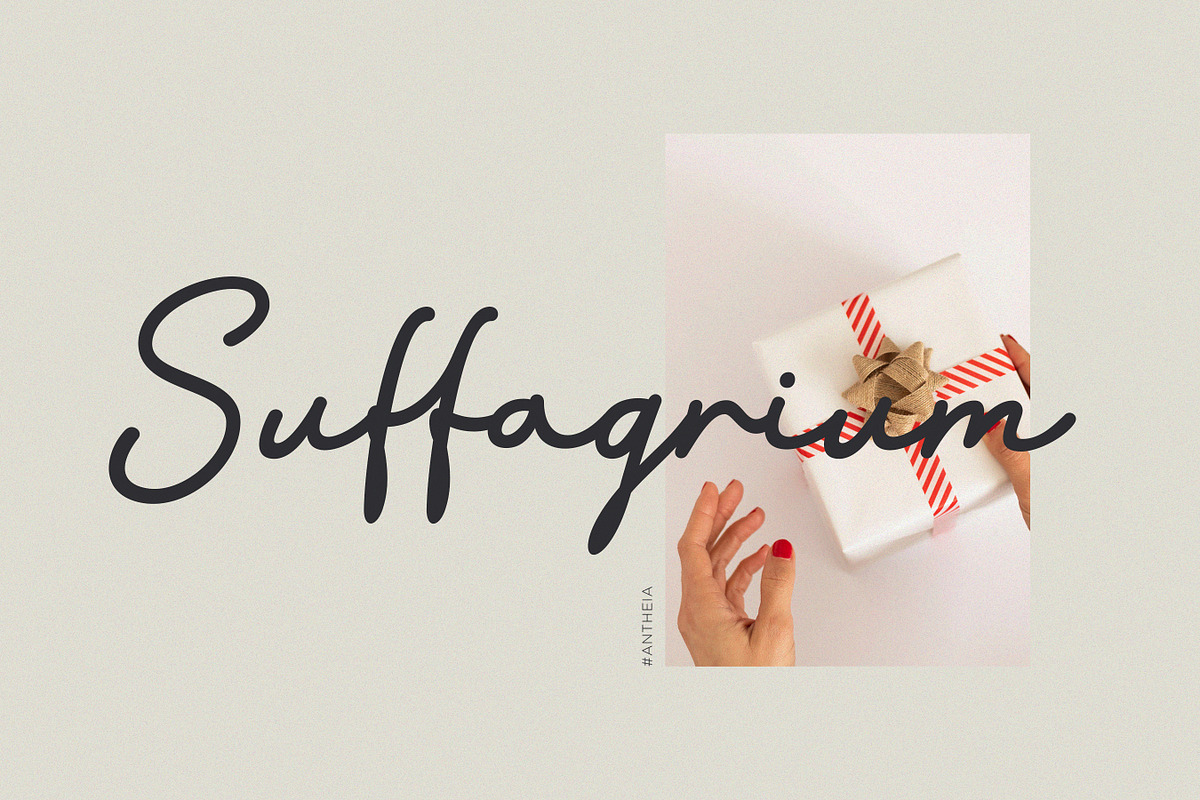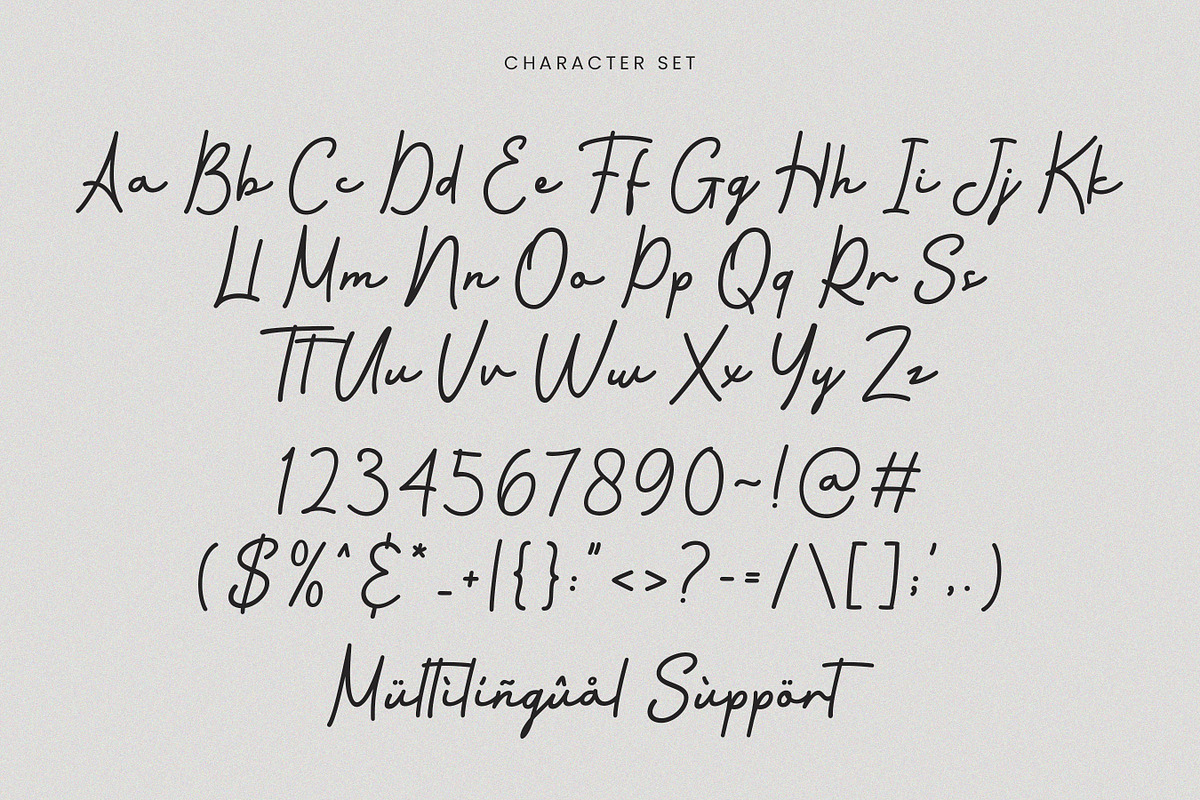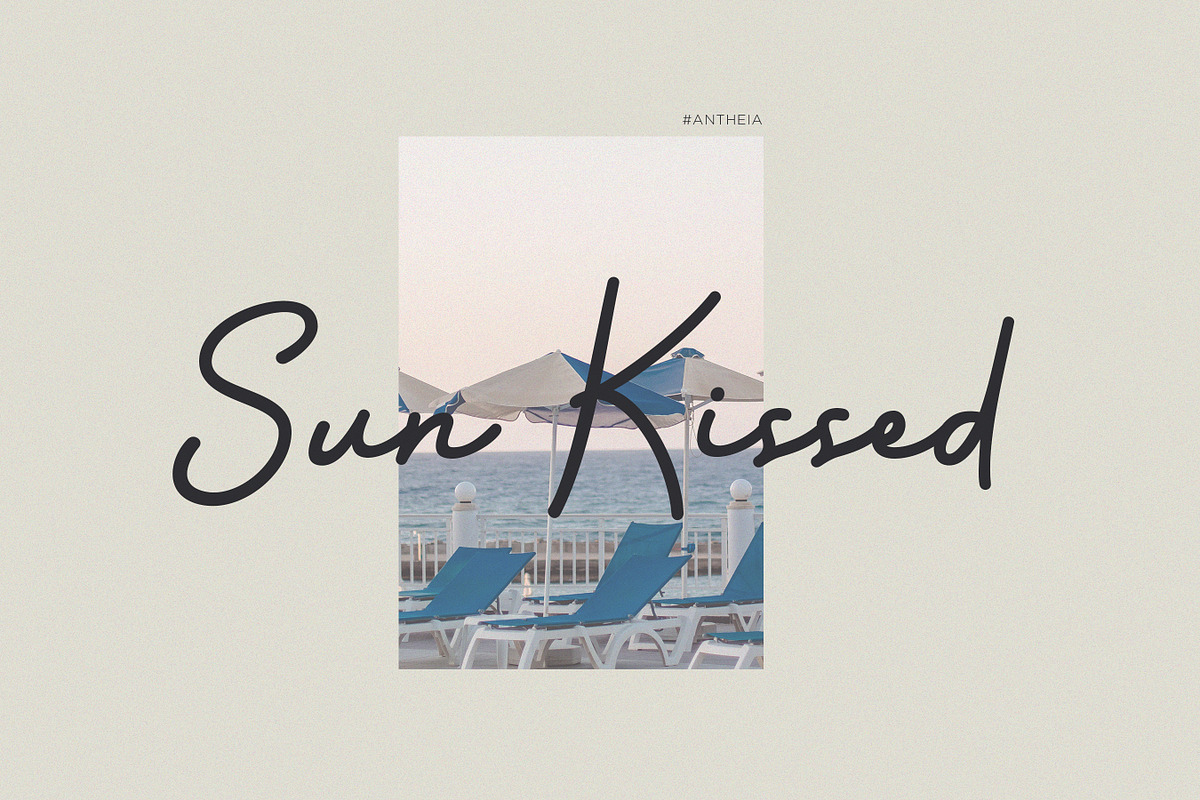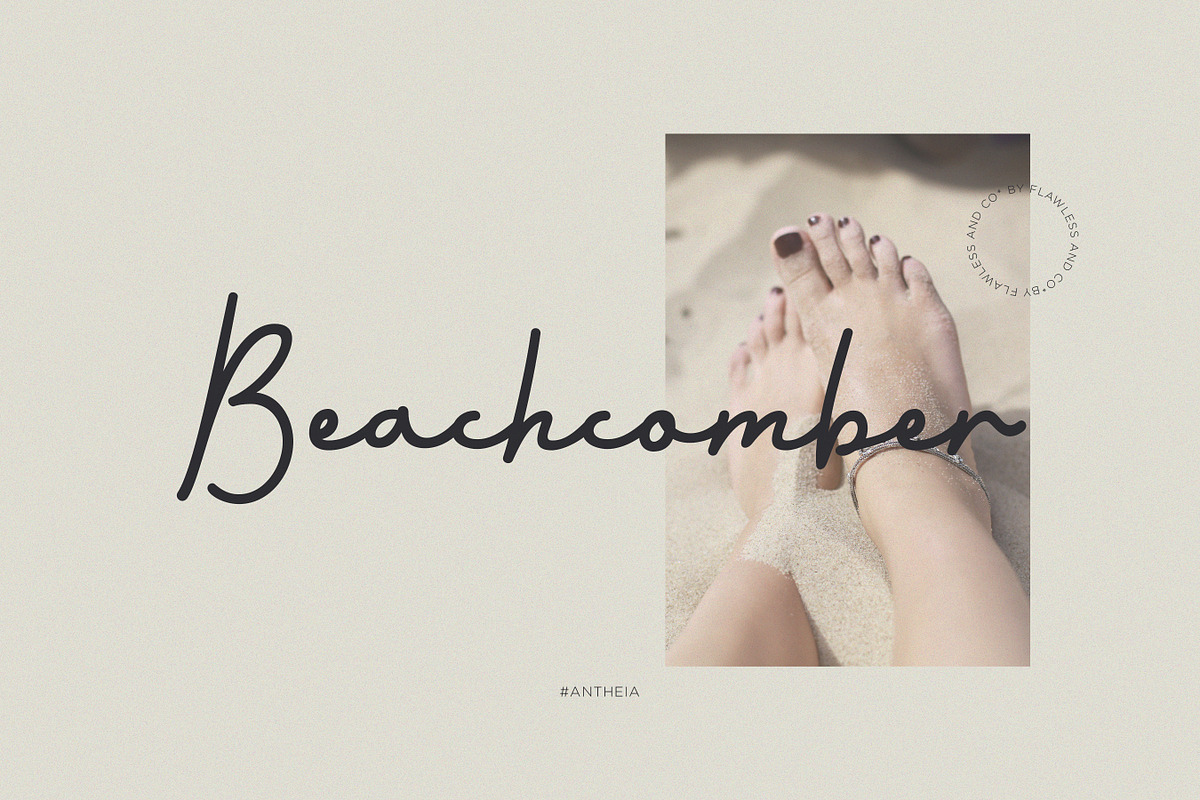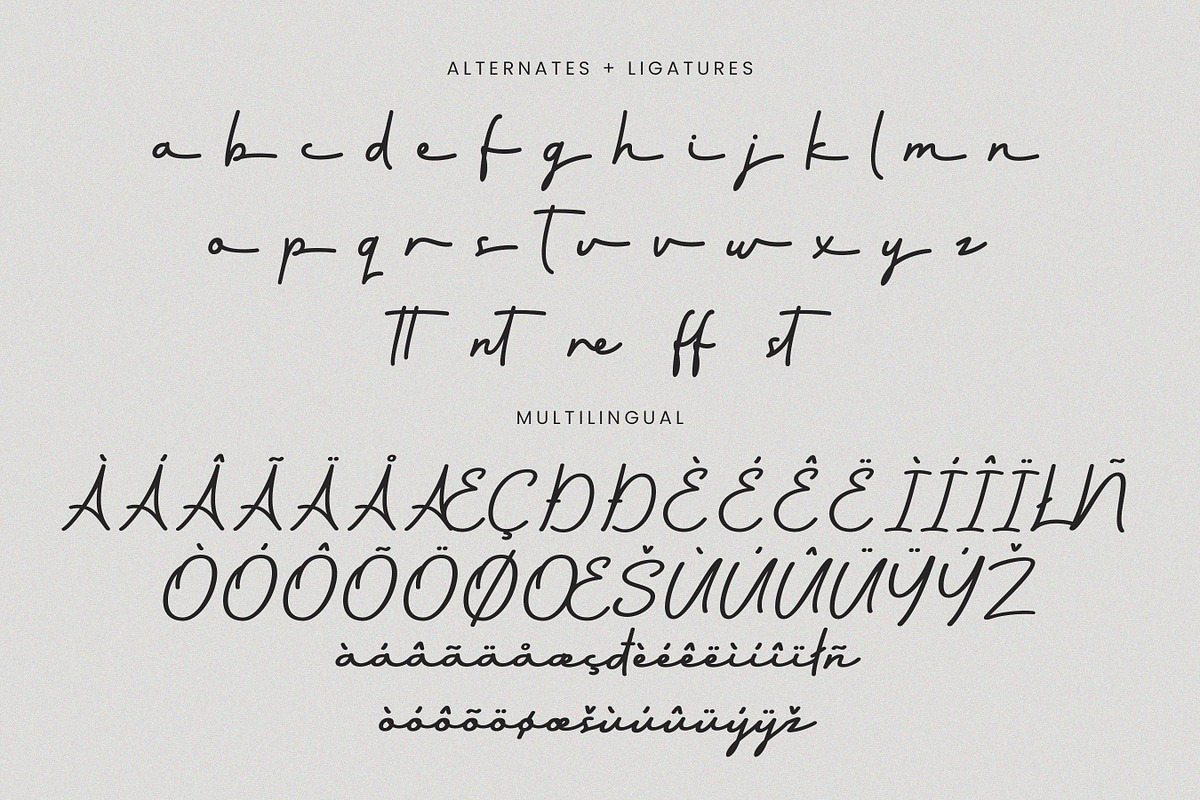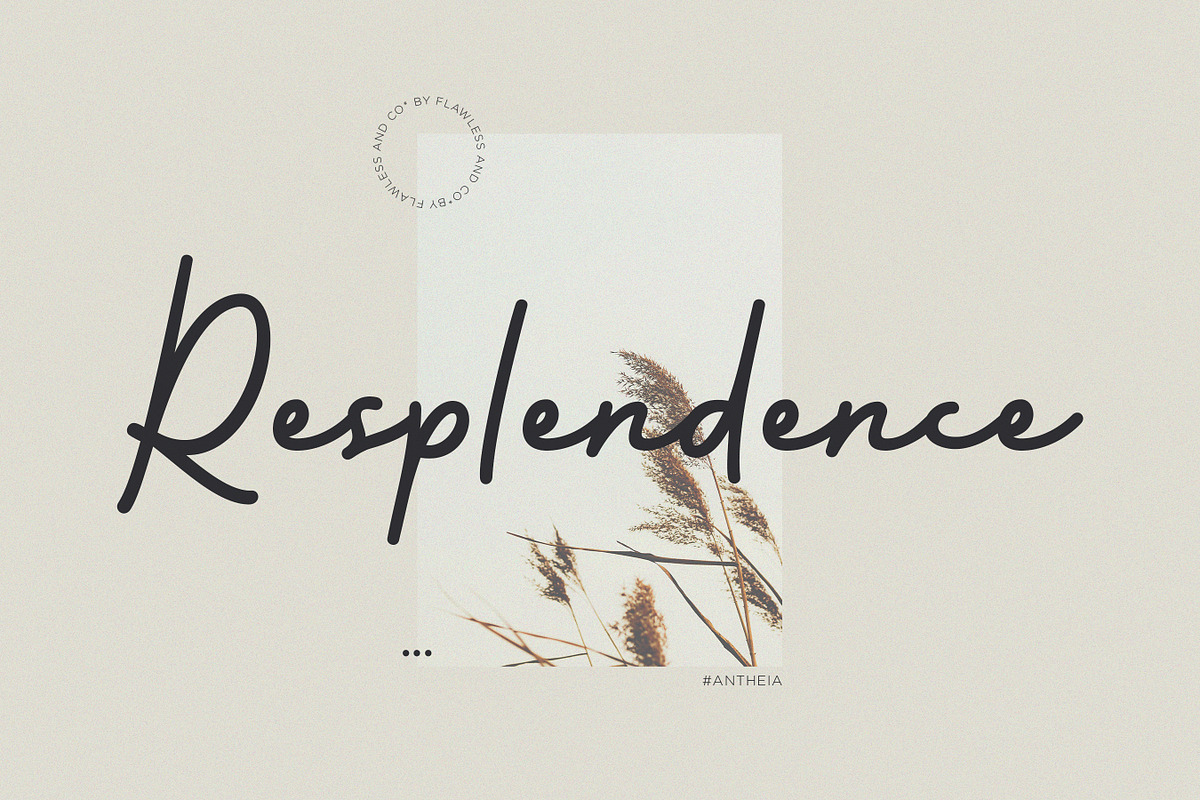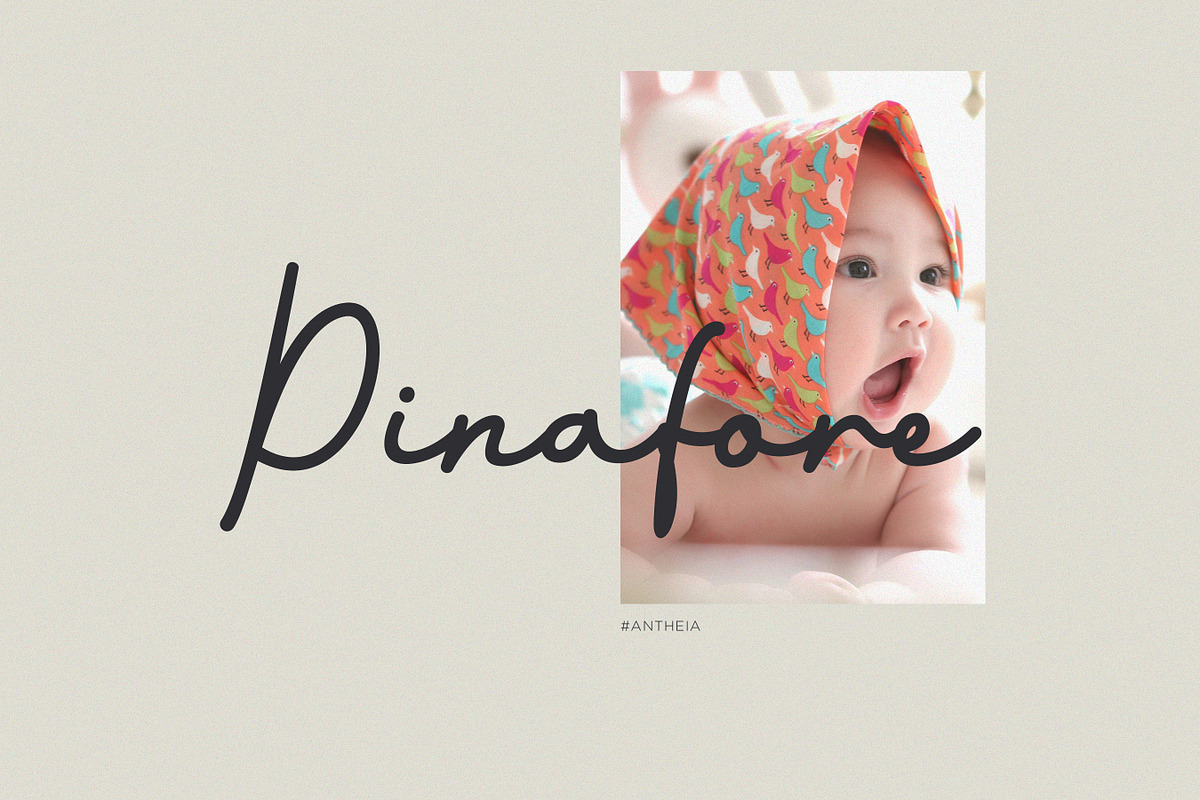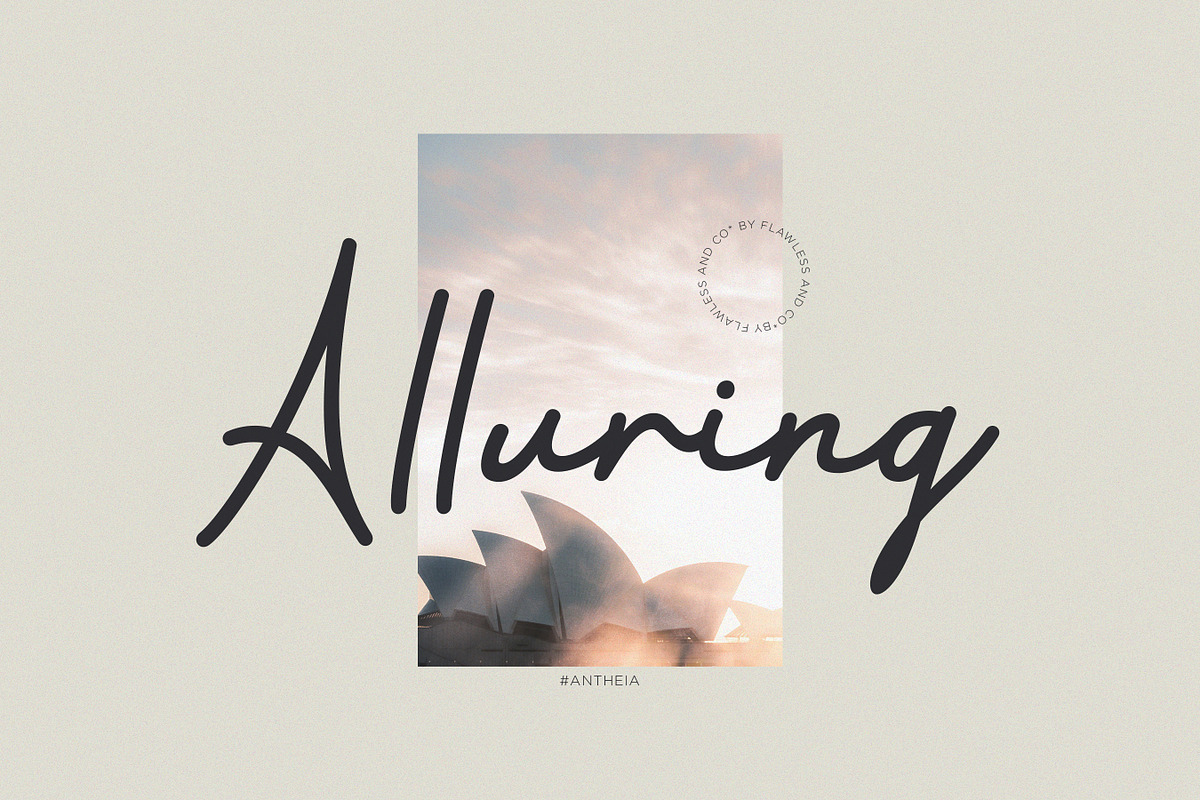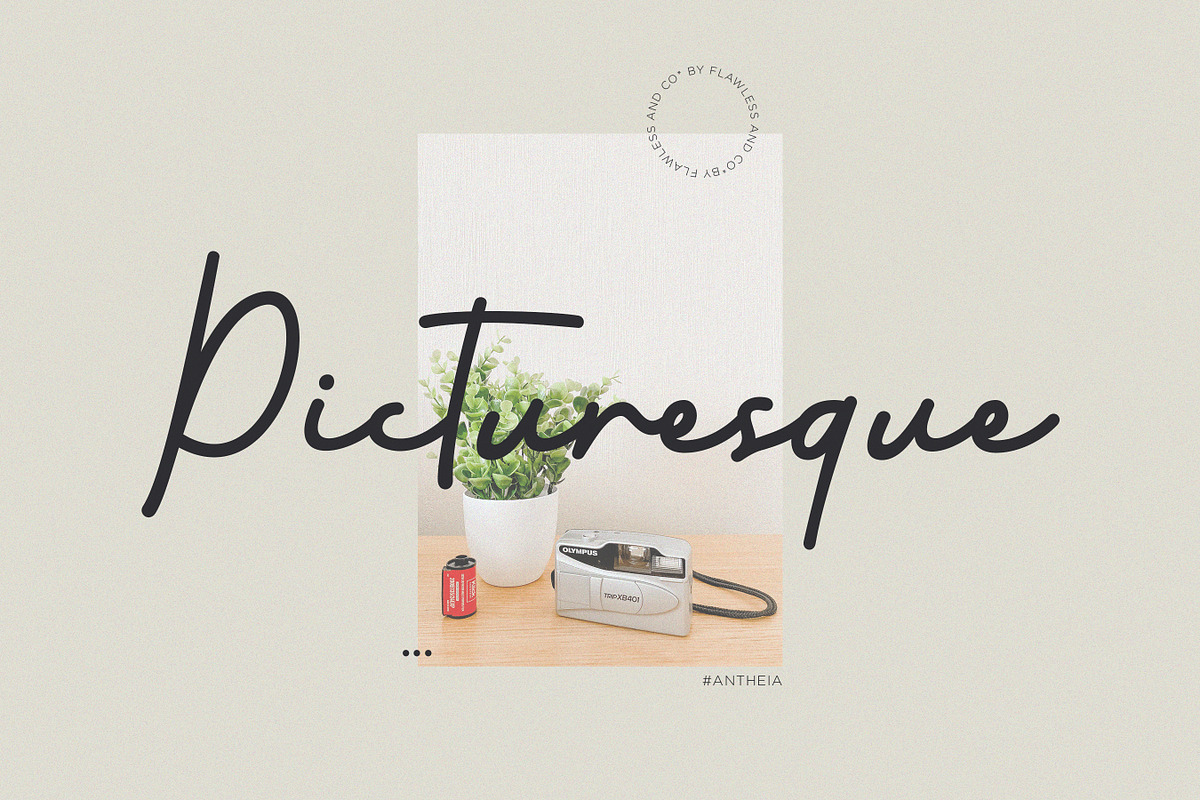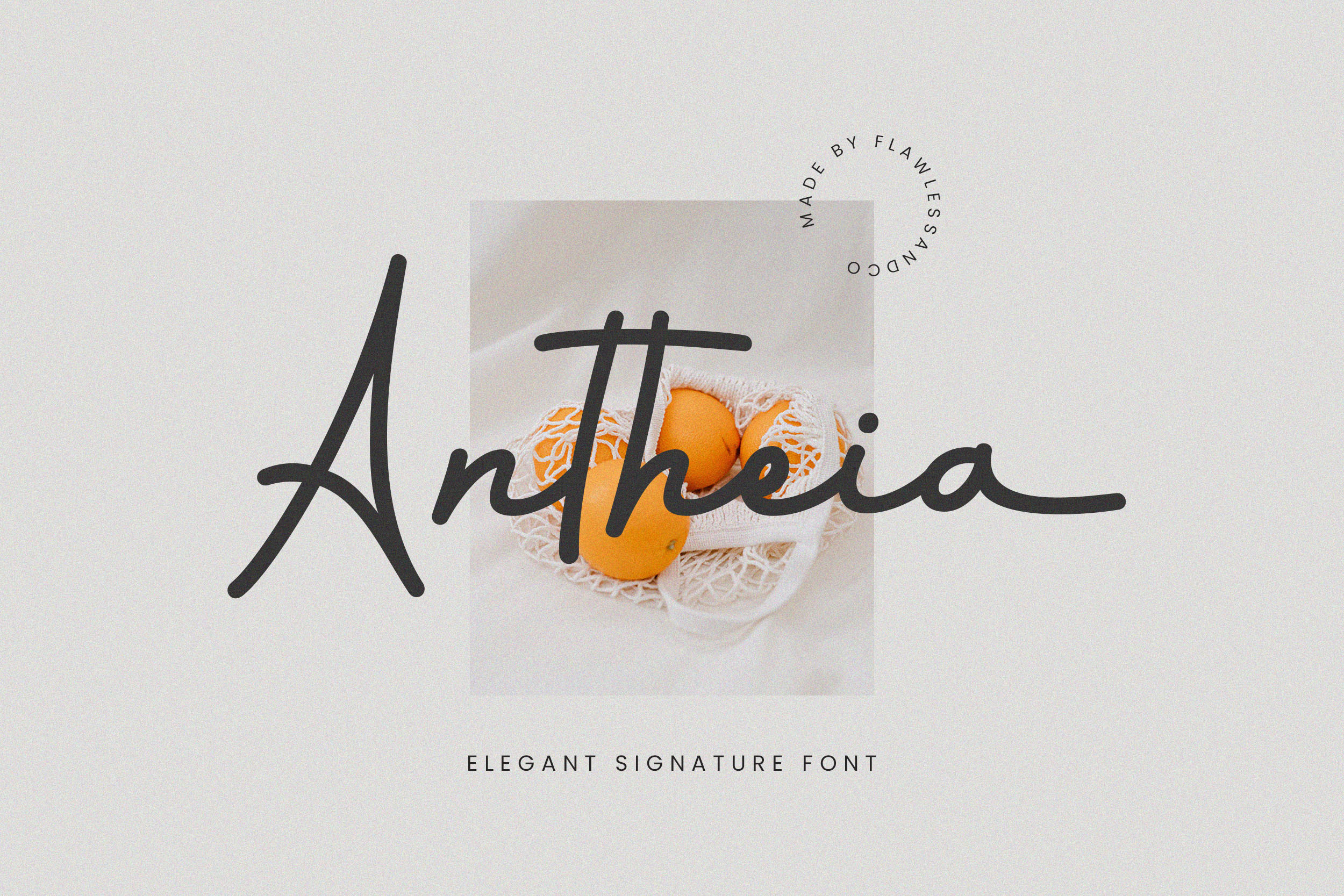
Antheia - Elegant Signature Font
Introducing "Antheia" - An Elegant Signature Font. Experience the epitome of elegance and sophistication with "Antheia," a graceful signature font that adds a touch of timeless beauty to your designs. With its fluid and refined letterforms, "Antheia" is designed to convey a sense of personal style and class.
Multilingual Uppercase alphabet A-Z Lowercase alphabet a-z Alternate Character Numbers 0-9 Some punctuation